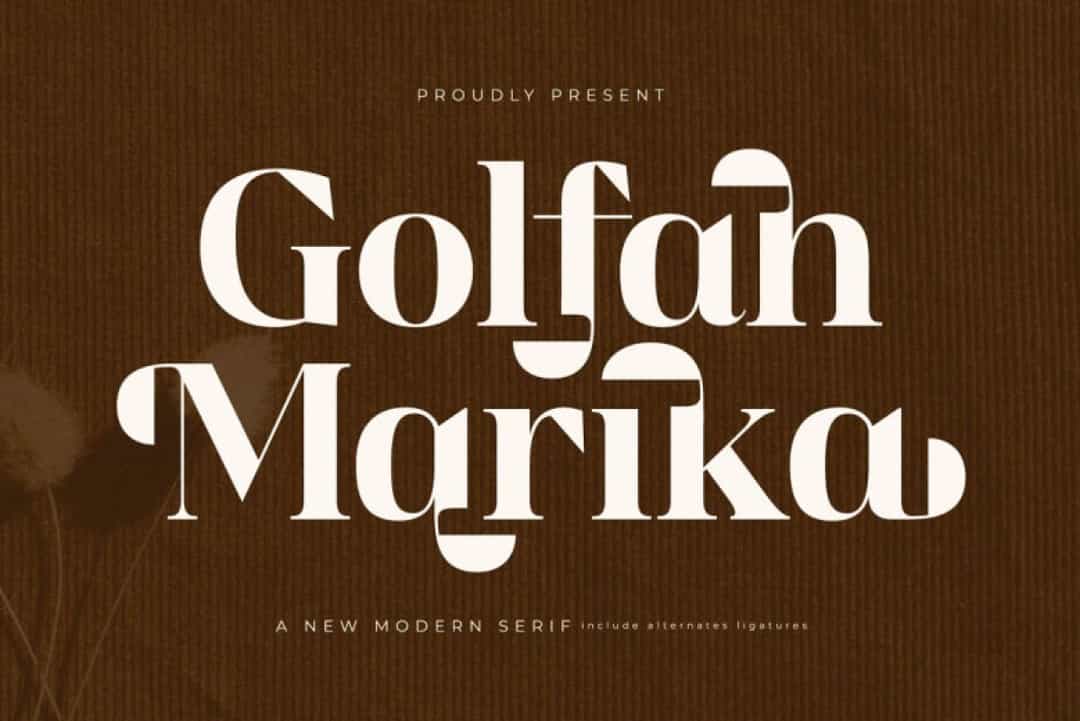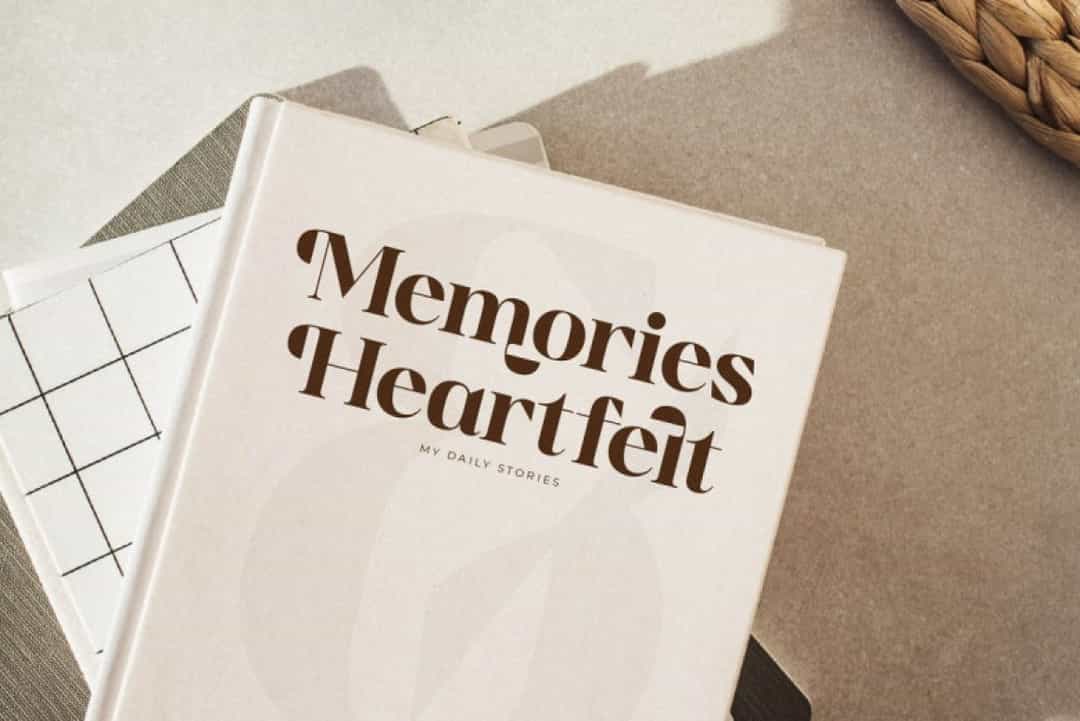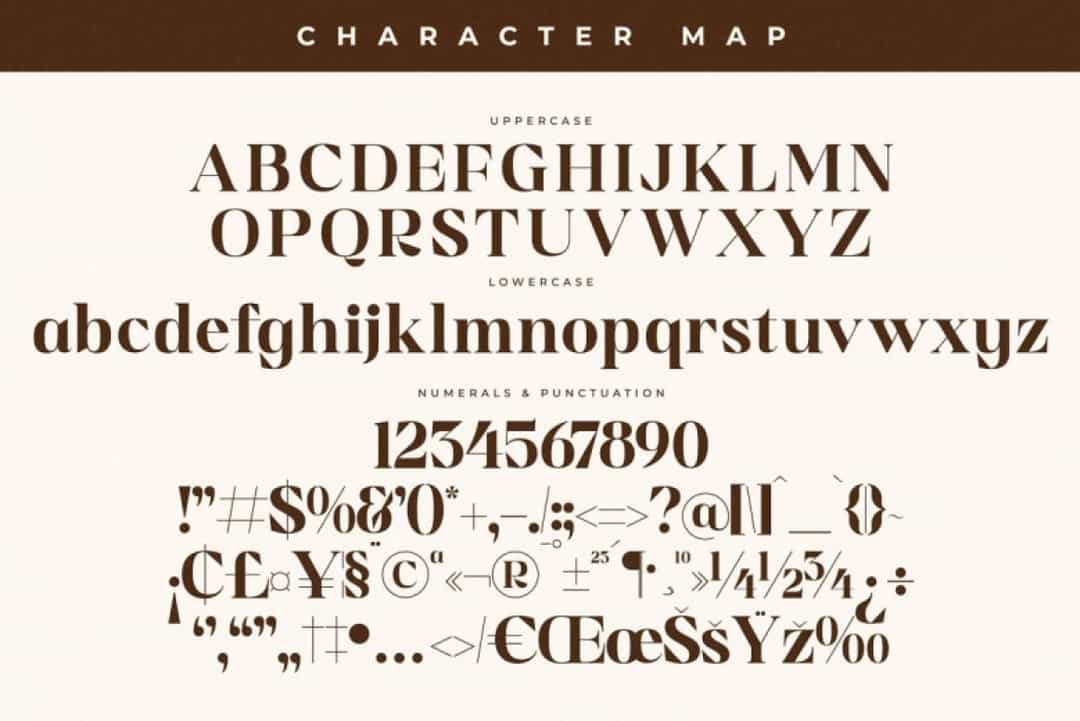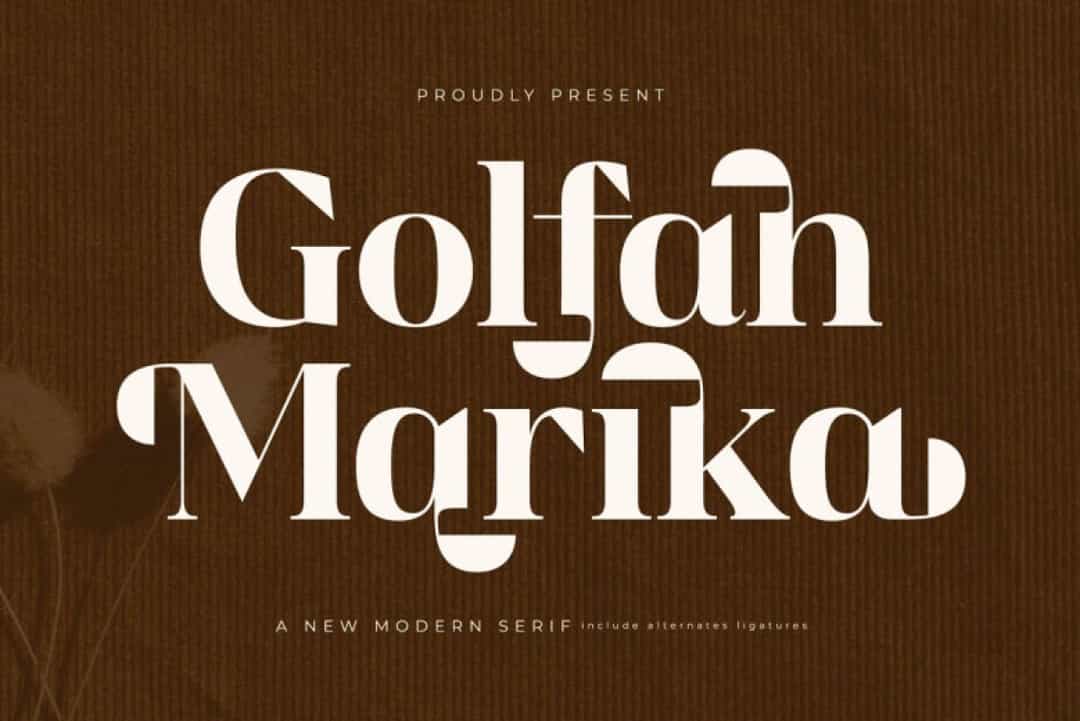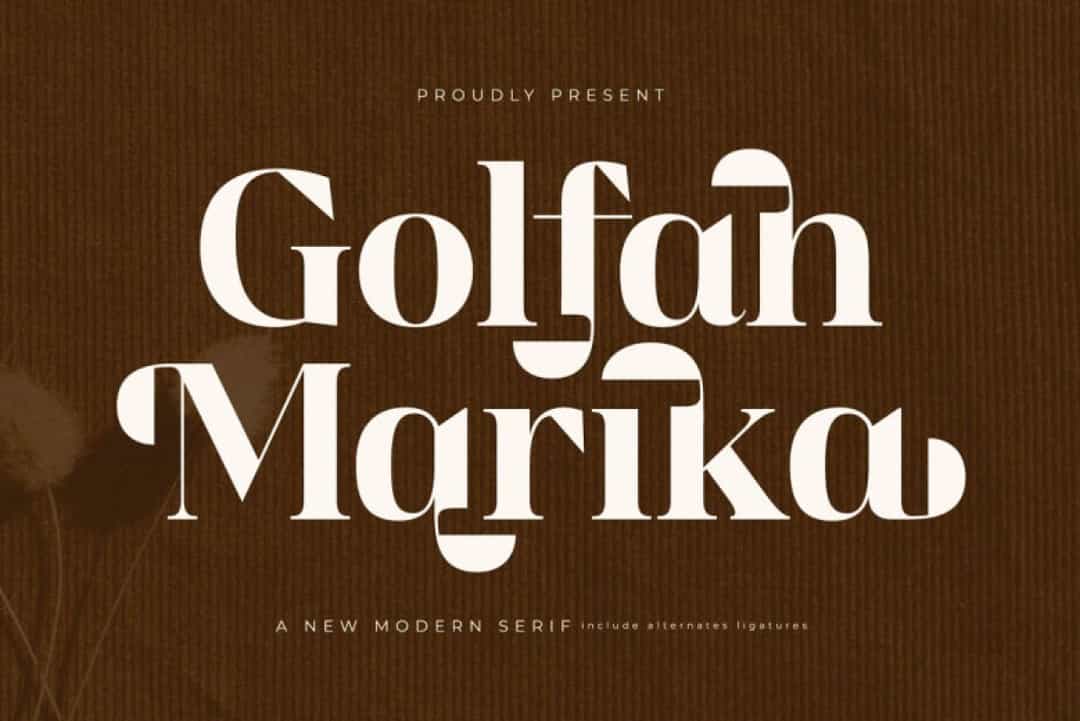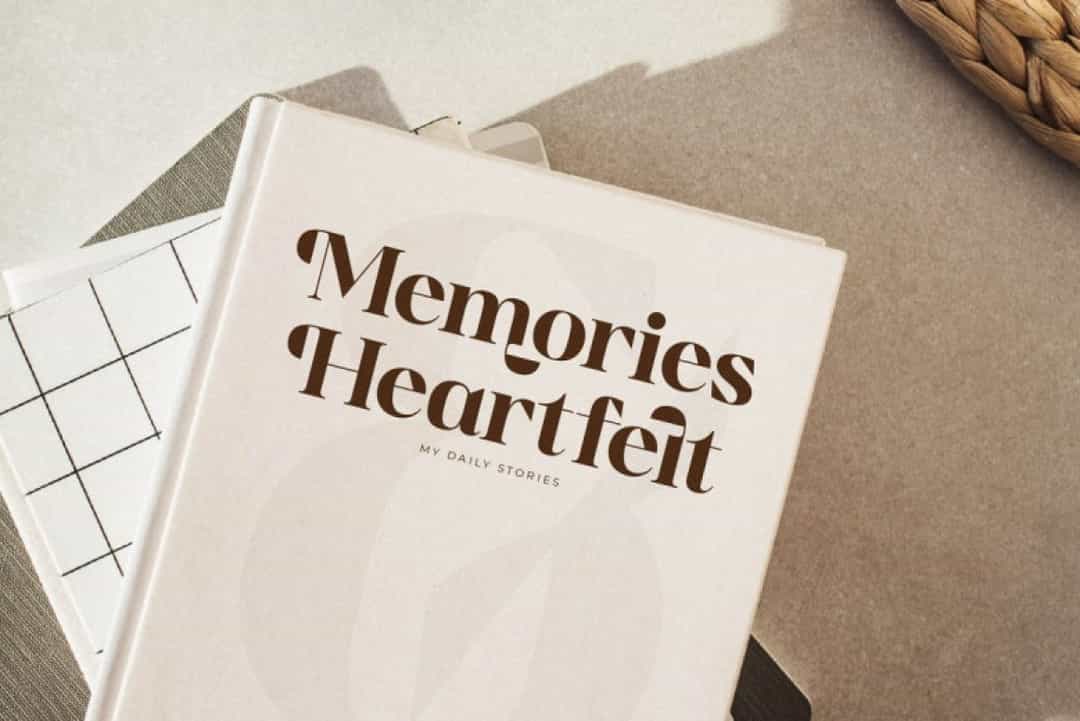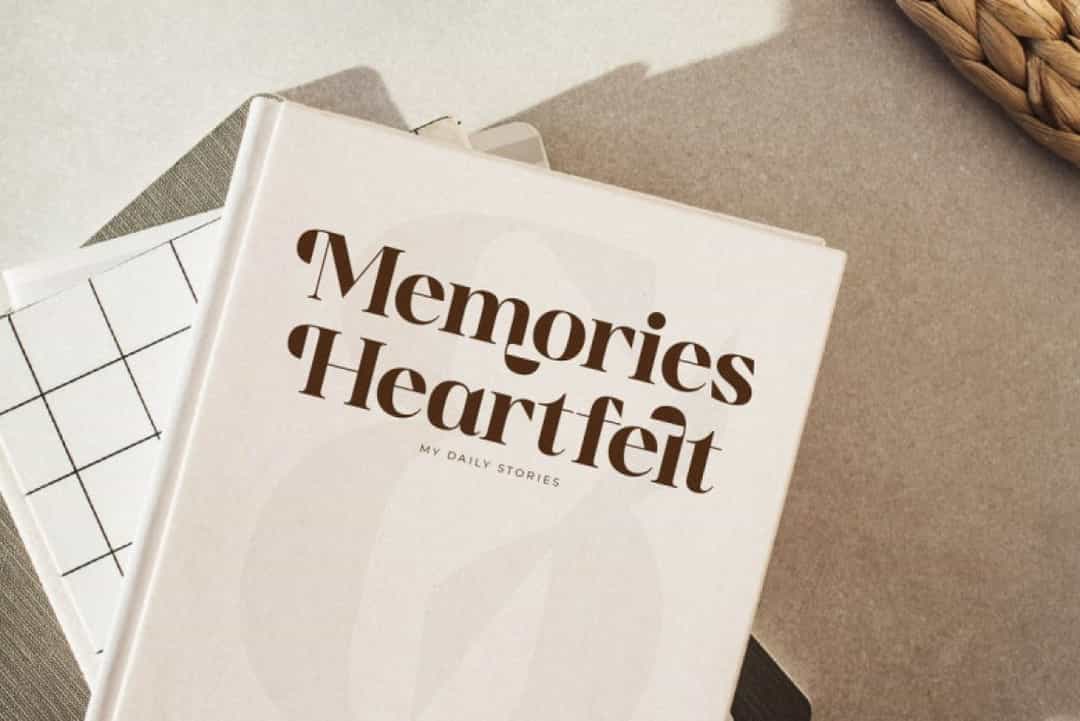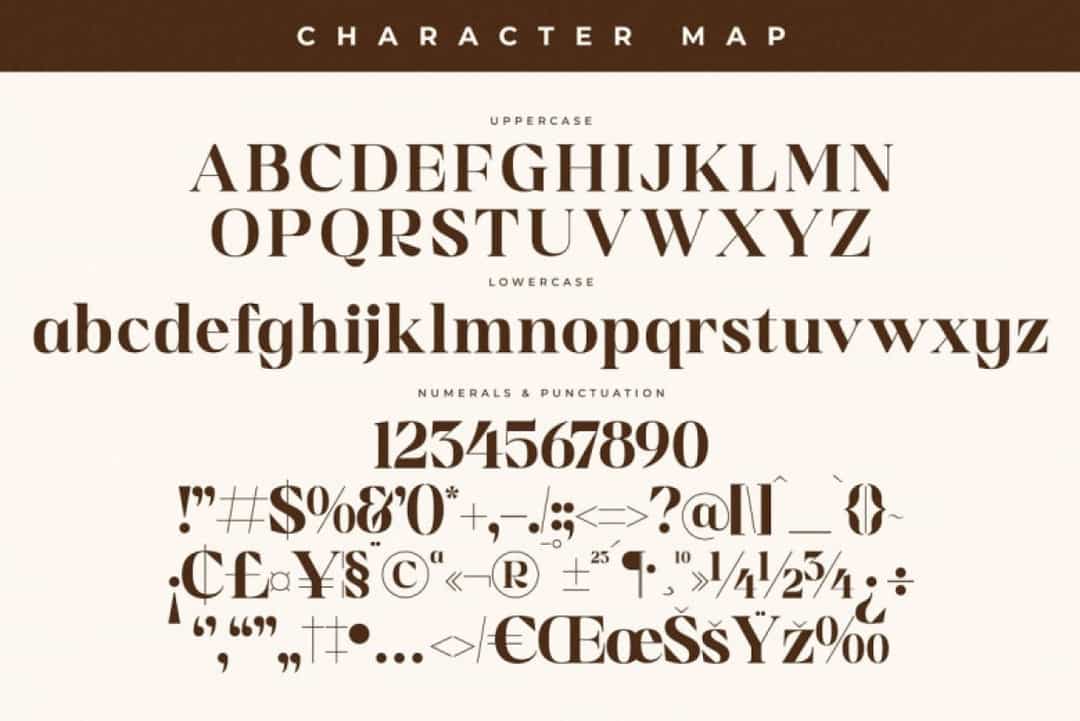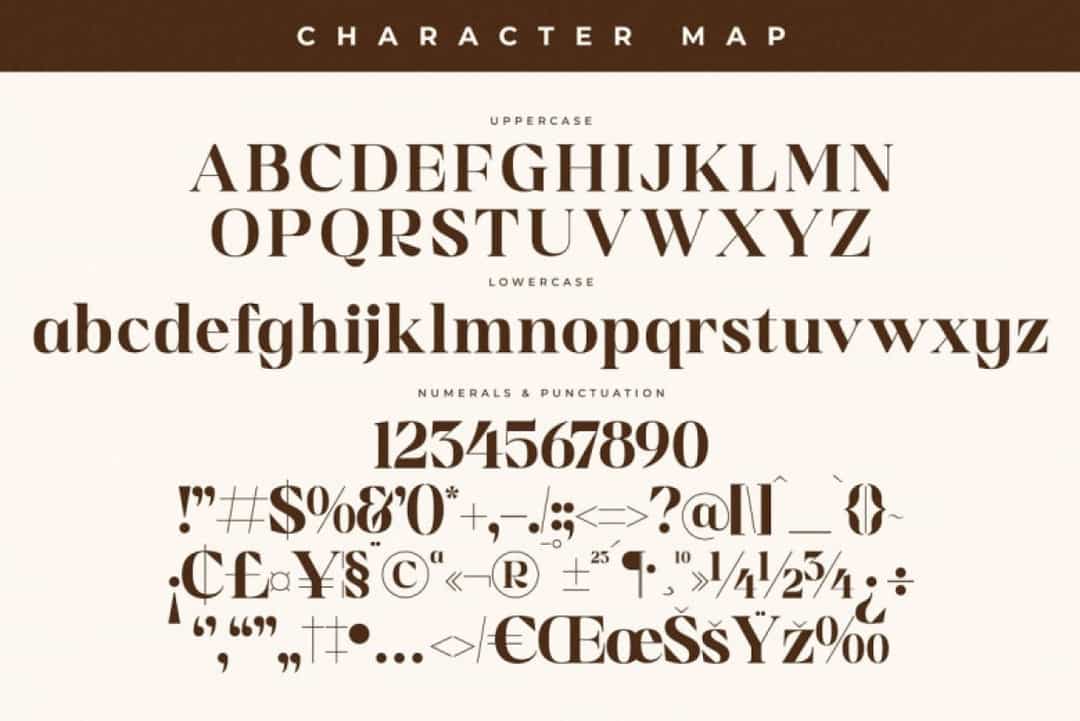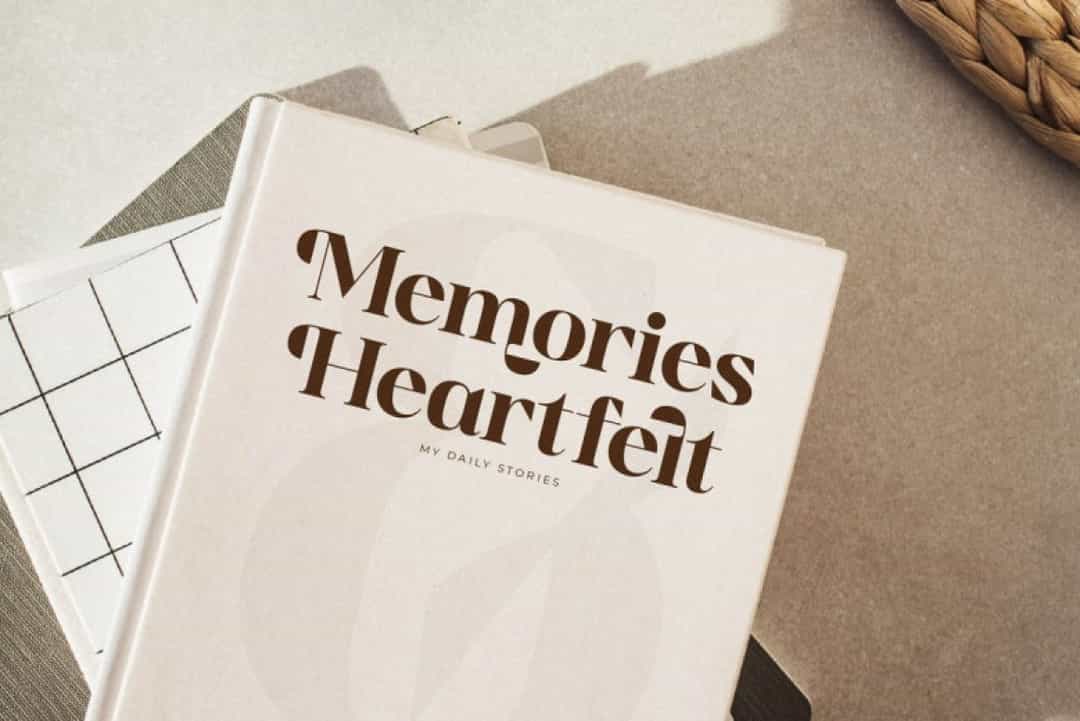
Golfah Marika is an elegant contemporary serif typeface with its own distinct style and contemporary appearance, ideal for logo design, movie, book name design, fashion brand clothing designs, magazine letters, quotes etc.